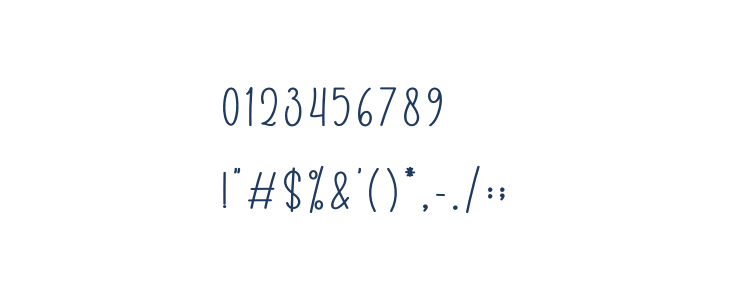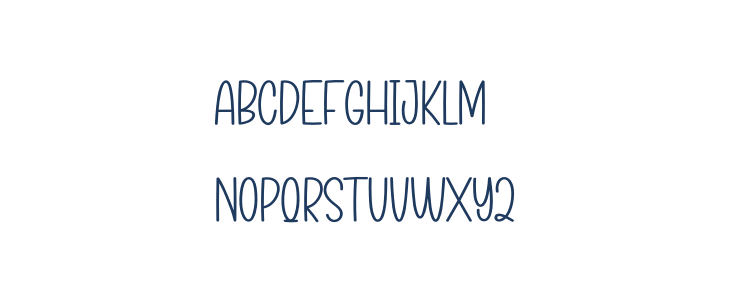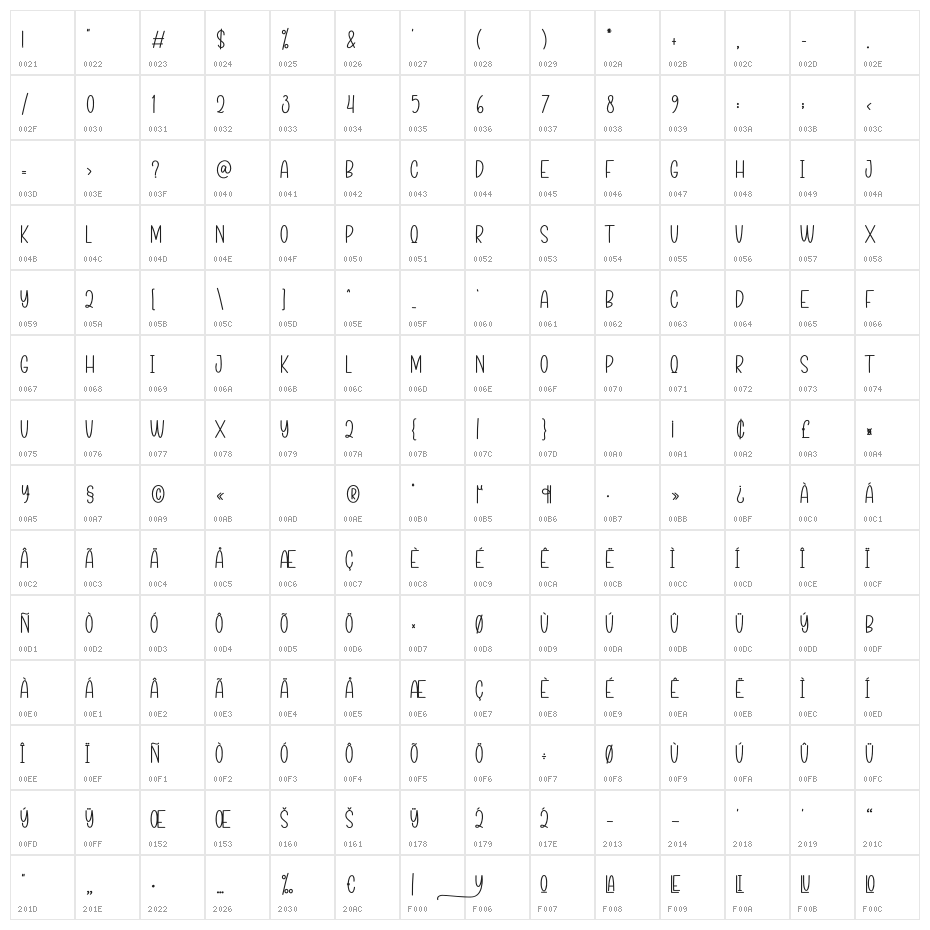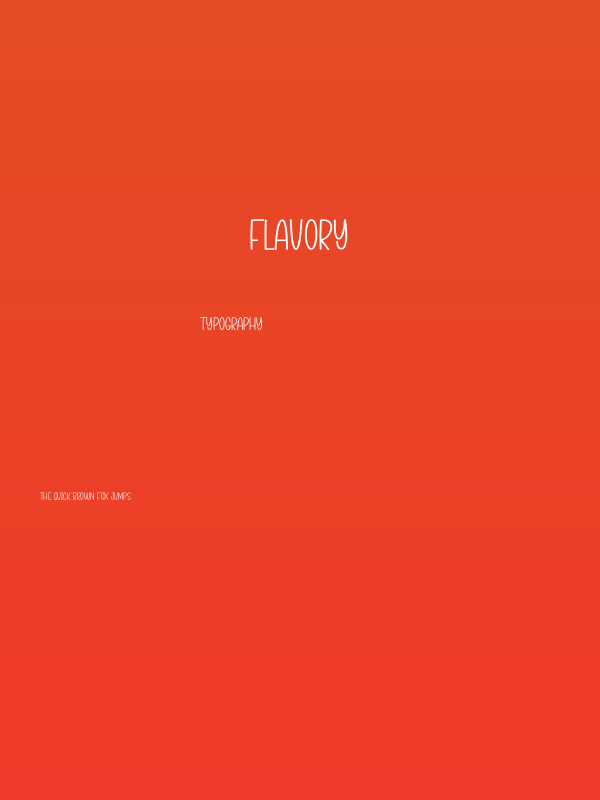
Flavory Font
Flavory Description
A playful, handwritten sans-serif font with tall, narrow letters and rounded terminals, giving it a friendly and informal appearance. The strokes are consistent in weight, and the characters have a slightly whimsical, casual feel.
| Overall Style | Playful, Casual, Friendly |
| Use Case | Headlines, Posters, Informal branding, Invitations |
| Proposed Projects | Children's books, greeting cards, casual branding, posters, invitations. |